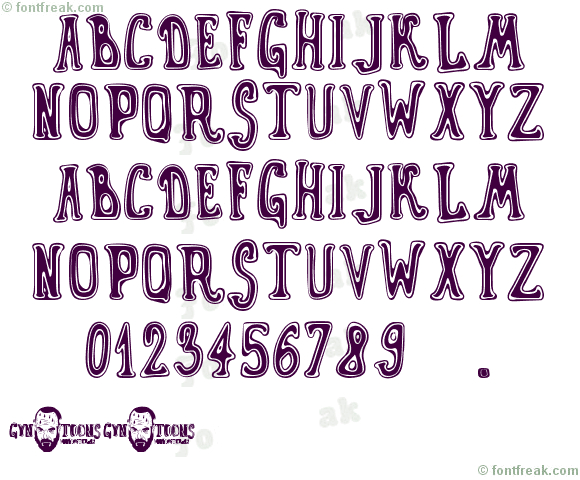
Gyn Toons
Gyn Toons is a whimsical display typeface designed by woodcutter Manero, embodying a playful and animated aesthetic that is sure to capture attention. This font falls into the decorative category, making it ideal for projects that require a touch of creativity and fun. Characterized by its bold stroke weight and distinct lack of contrast, Gyn Toons presents an inviting and friendly appearance, with rounded edges and a slightly irregular structure that adds to its charm. The spacing is deliberately generous, allowing each character to breathe and ensuring legibility even at larger sizes.
This font is particularly well-suited for a variety of applications. It shines in children's book titles, where its playful nature can capture young readers' imaginations. Additionally, Gyn Toons can elevate the look of promotional materials for family-friendly events, such as festivals or fairs, where a lighthearted touch is essential. It's also a fantastic choice for restaurant menus that aim for a fun and casual vibe, as well as for social media graphics targeting a youthful audience. Graphic designers, small business owners, and content creators will find Gyn Toons to be a versatile asset in their creative toolkit.
What sets Gyn Toons apart is its unique ability to blend humor with approachability, making it a memorable choice for any project. The font’s quirky design elements invite viewers to engage, while its freeware license ensures that anyone can access this delightful typeface for their own creative endeavors. For those seeking a distinctive and playful typeface, the Gyn Toons font free download offers an excellent opportunity to add a touch of whimsy to any design project.